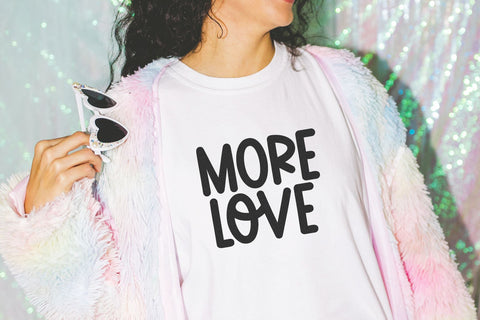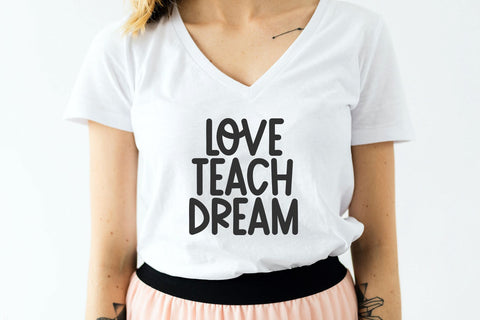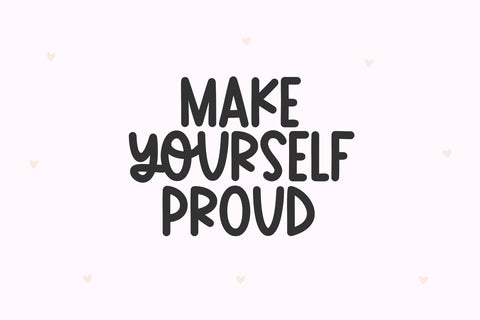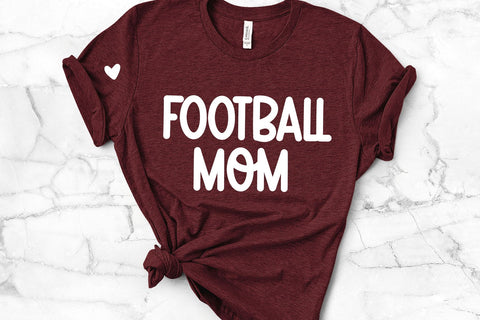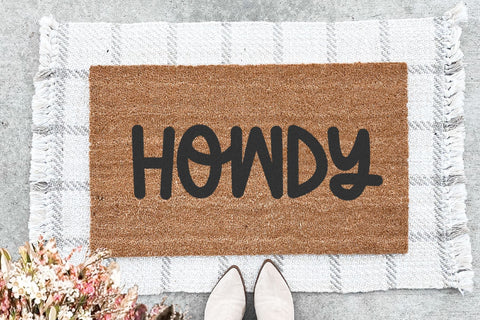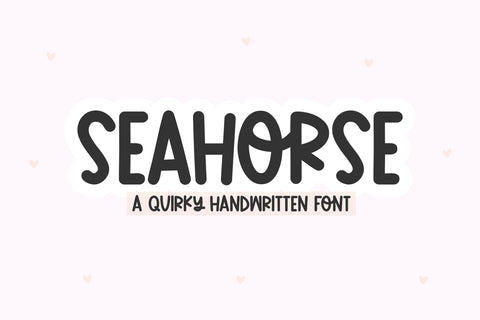
Seahorse - Cute Handwritten Font
Seahorse is a cute handwritten font.
This font is perfect for cricut projects, quotes, goodnotes, planners, handwritten notes, logos, teachers and more!